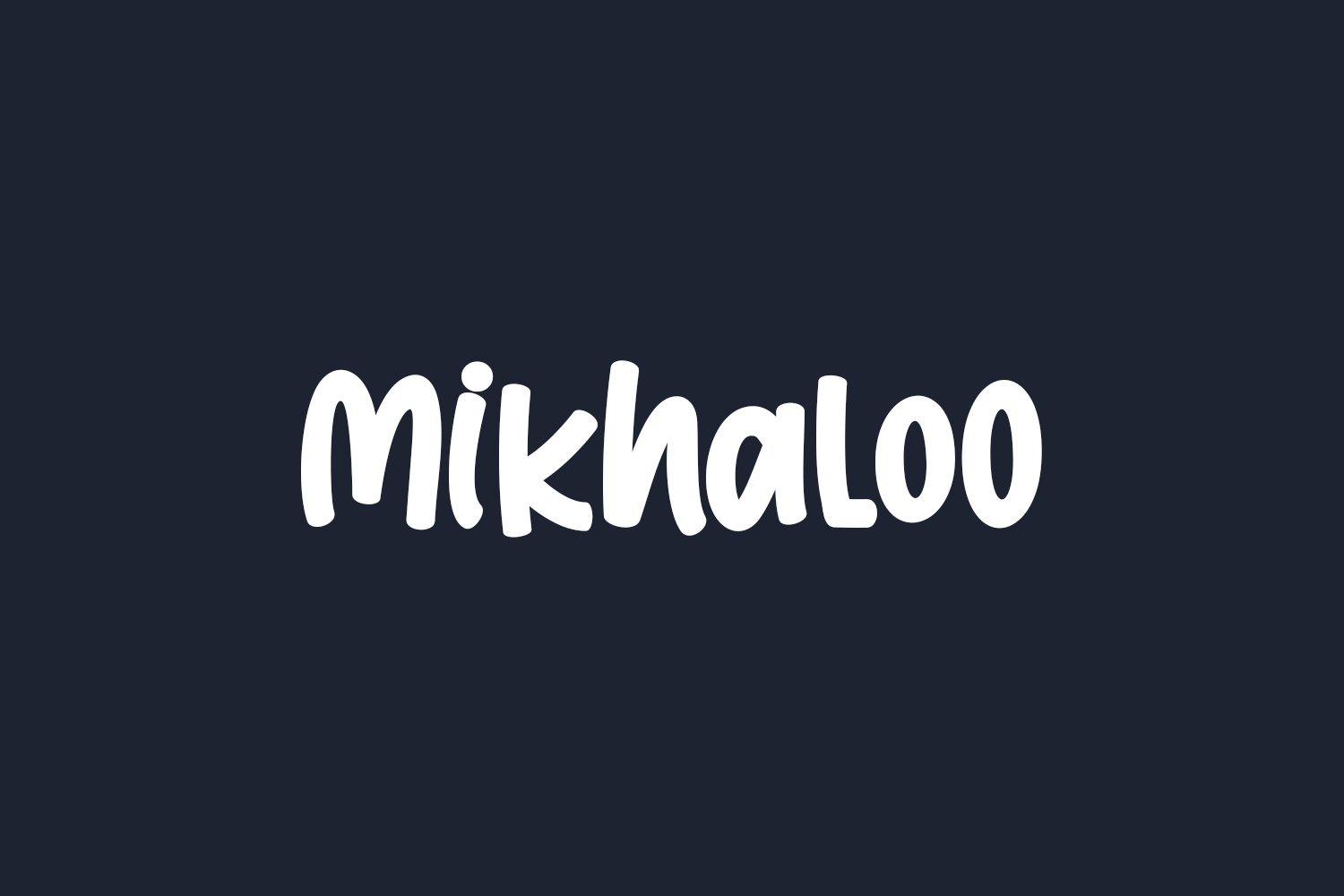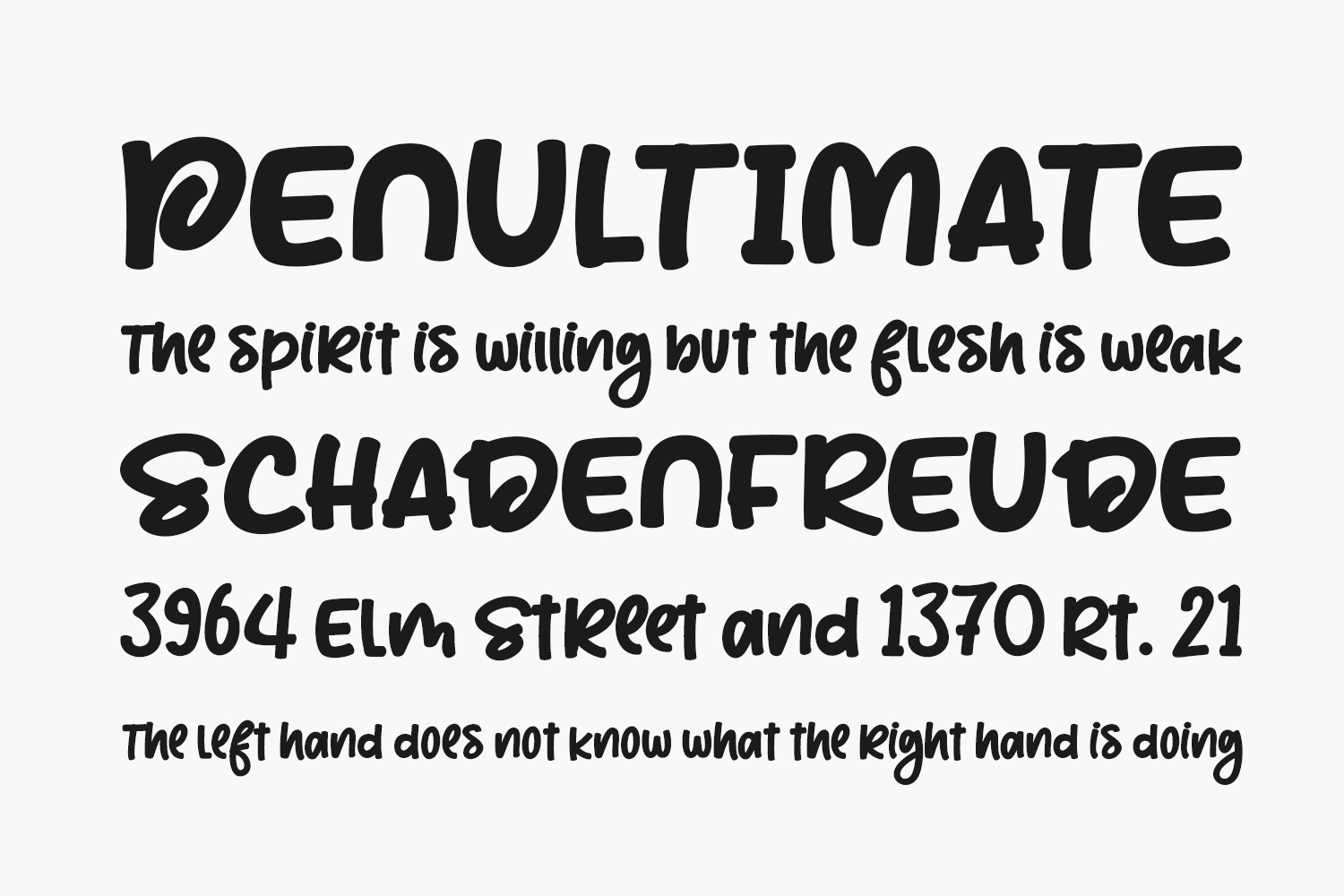
Mikhaloo Free Font is a clean and playful display font. Download the font for free if you need it for personal use or purchase the full version for commercial use.
Designed by Letterara